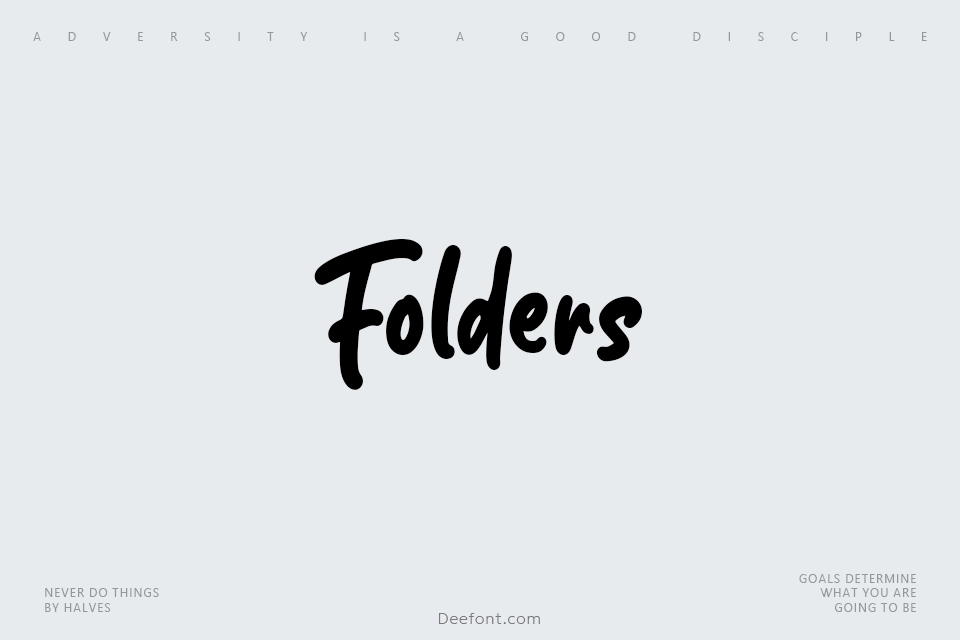
Folders Font
Folders Font is a charming handdrawn typeface designed with playful, natural strokes that bring personality and warmth to creative projects. Perfect for signature logos, handwritten quotes, product packaging, fashion magazines, and promotional materials, this versatile font effortlessly adds a touch of authenticity to your designs. Whether creating social media posts, book covers, or merchandise branding, Folders Font delivers fresh, engaging typography that feels genuinely handwritten while maintaining excellent readability across various applications and sizes.